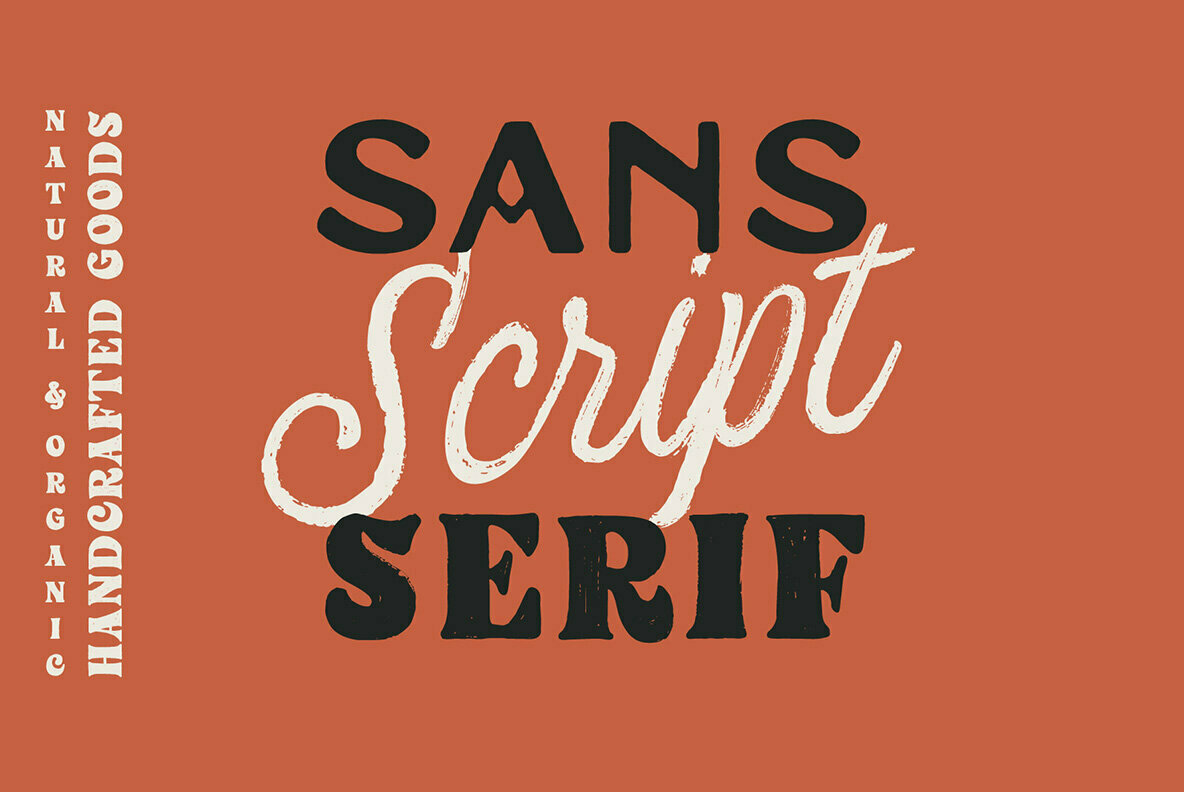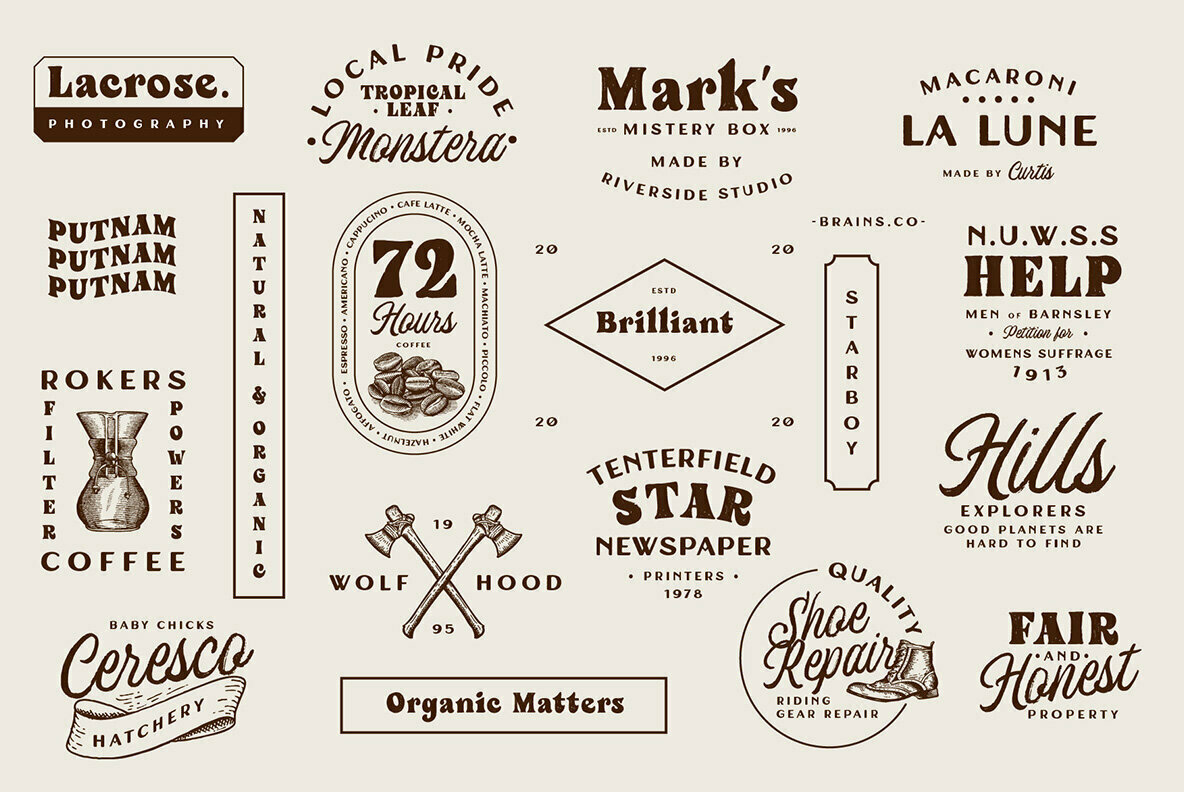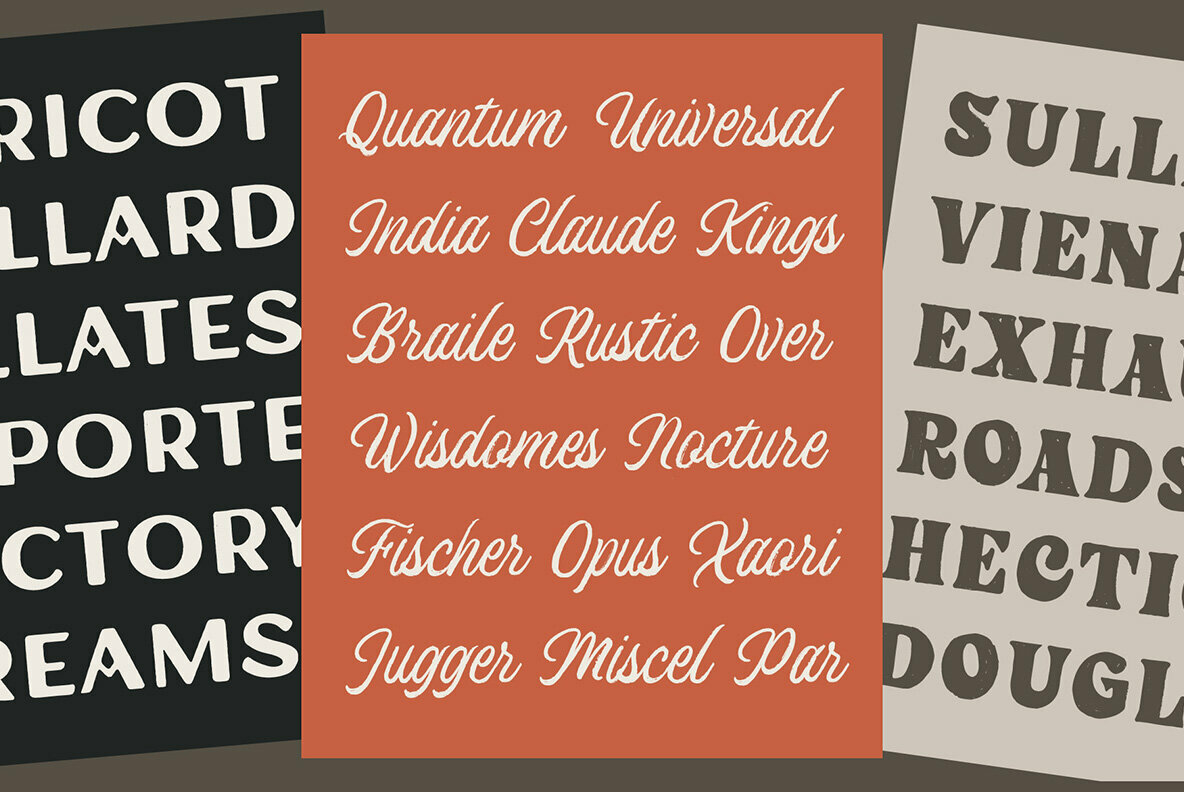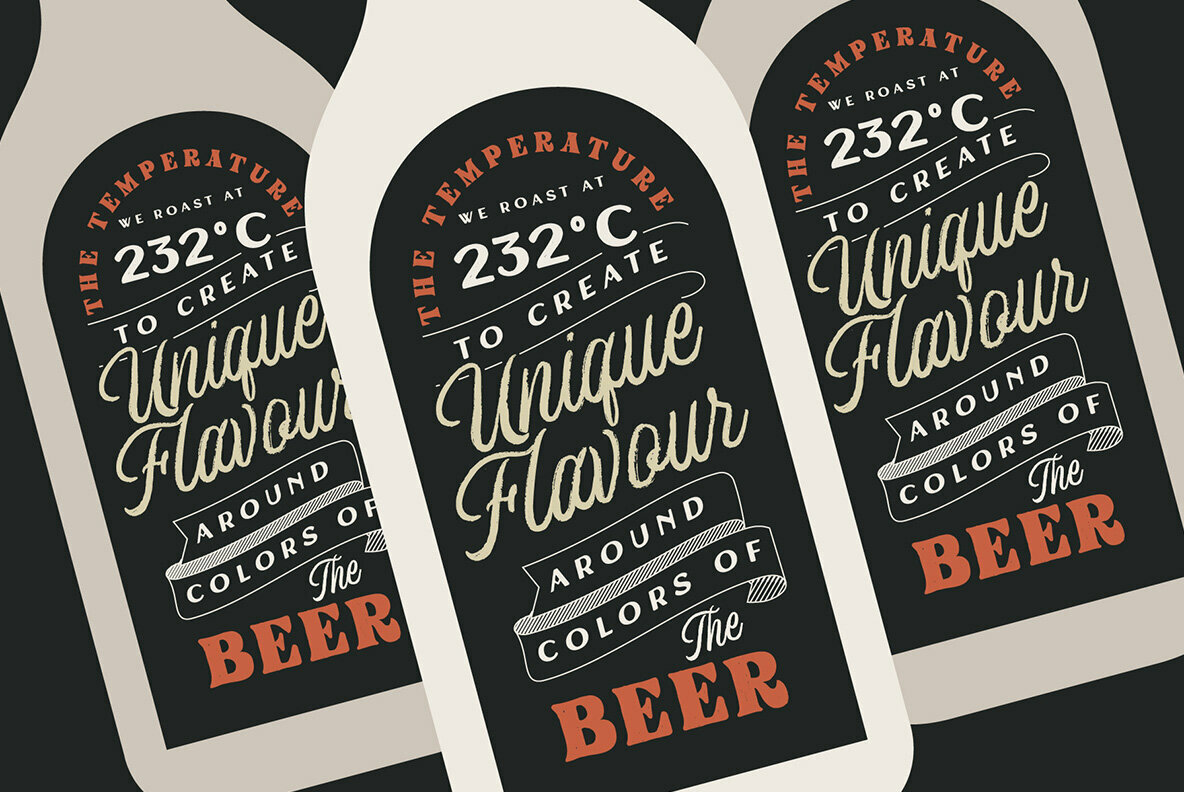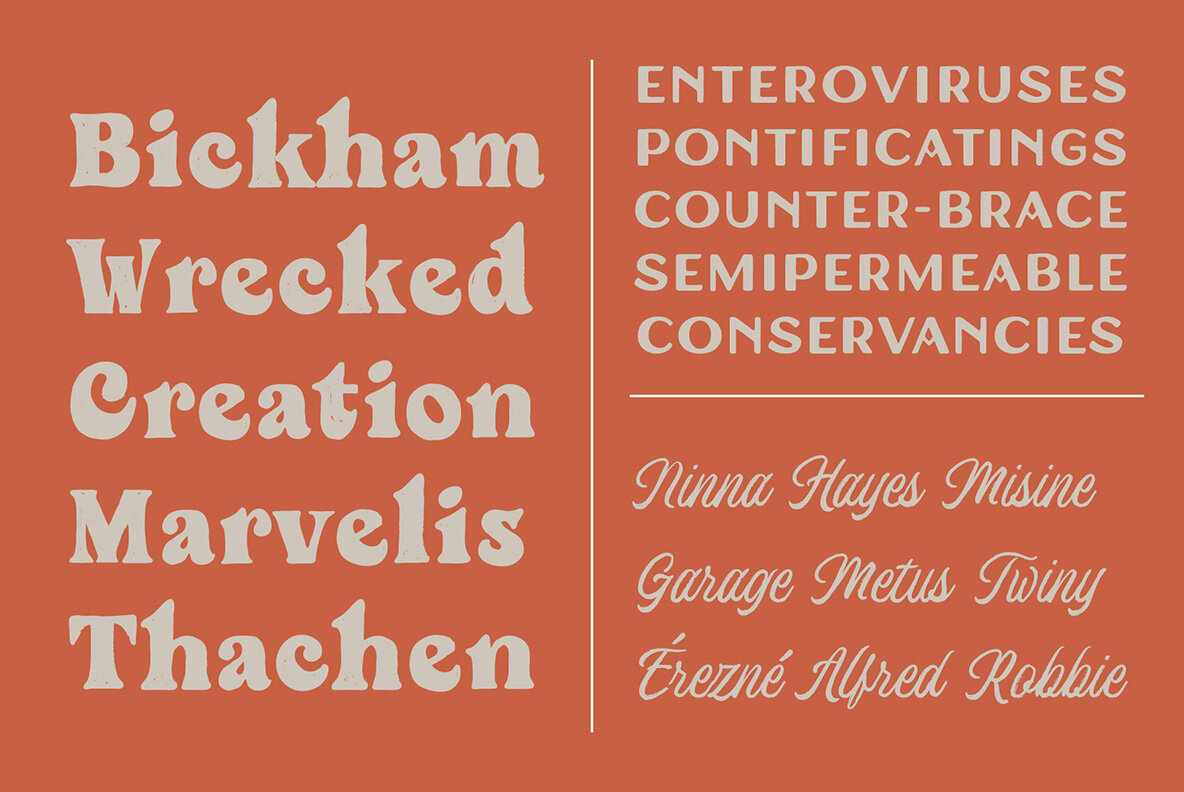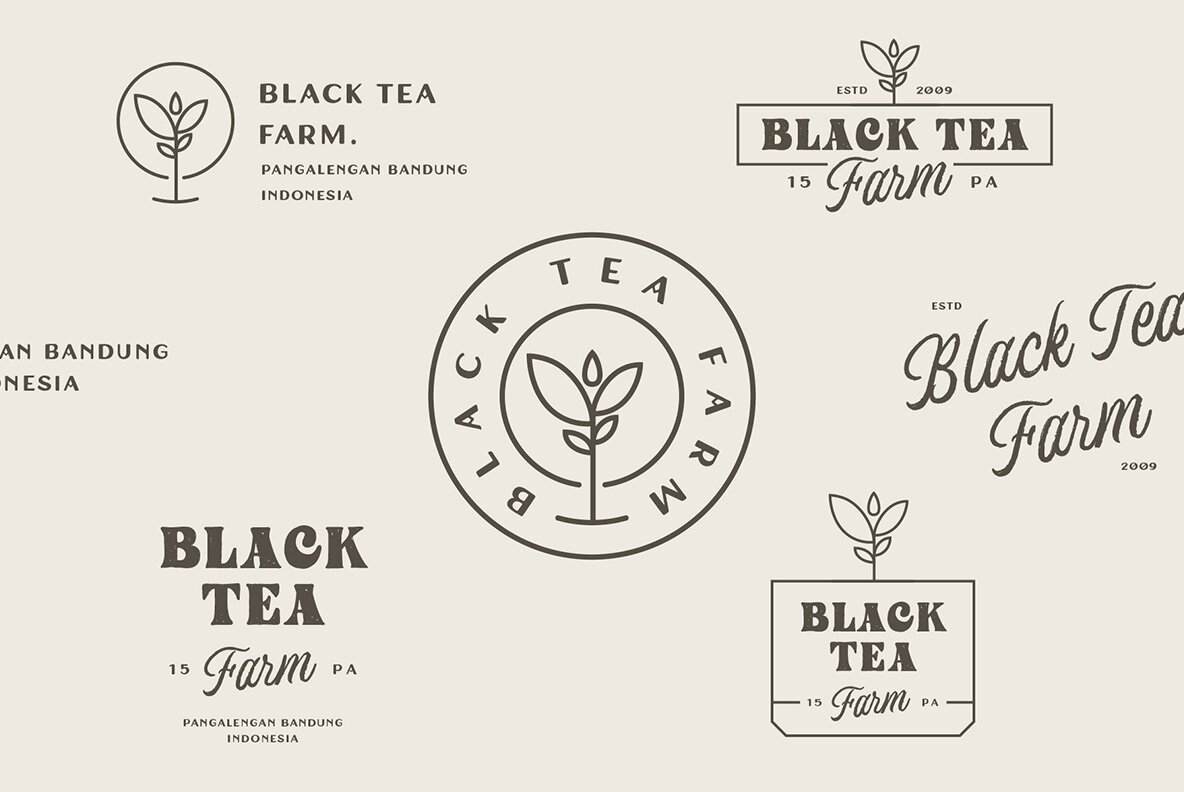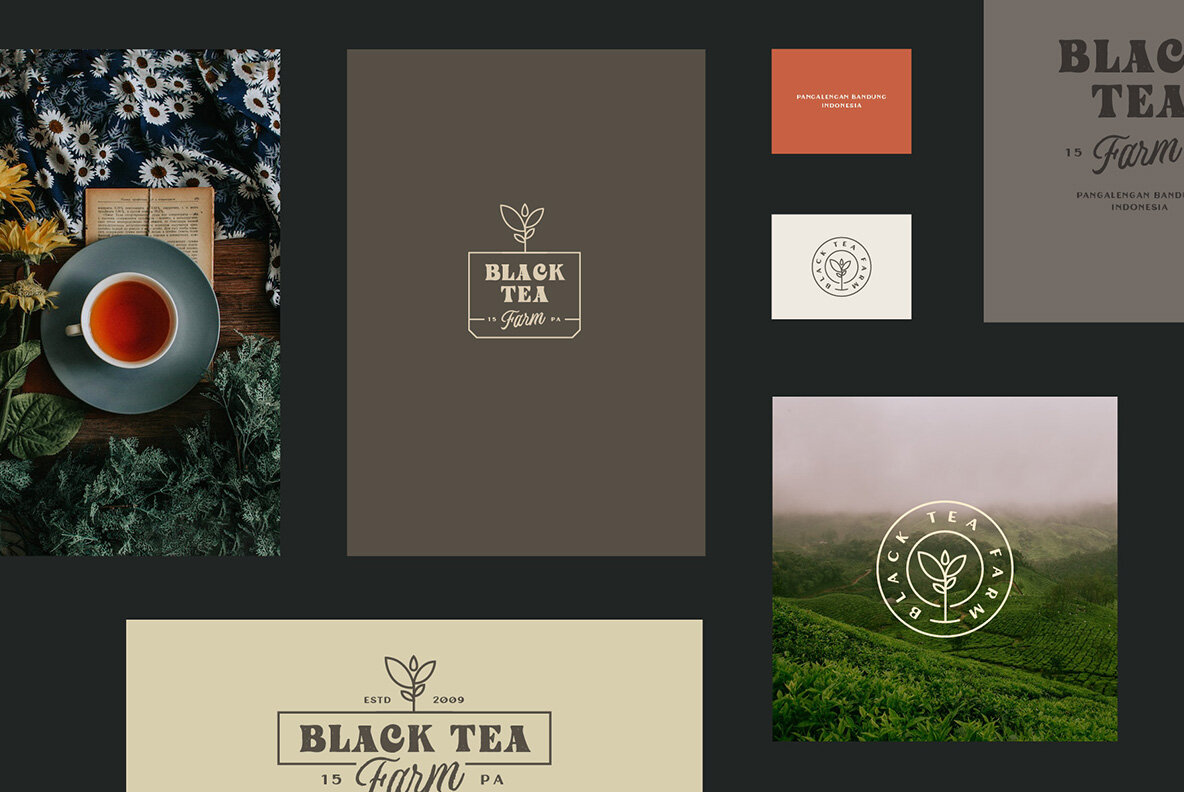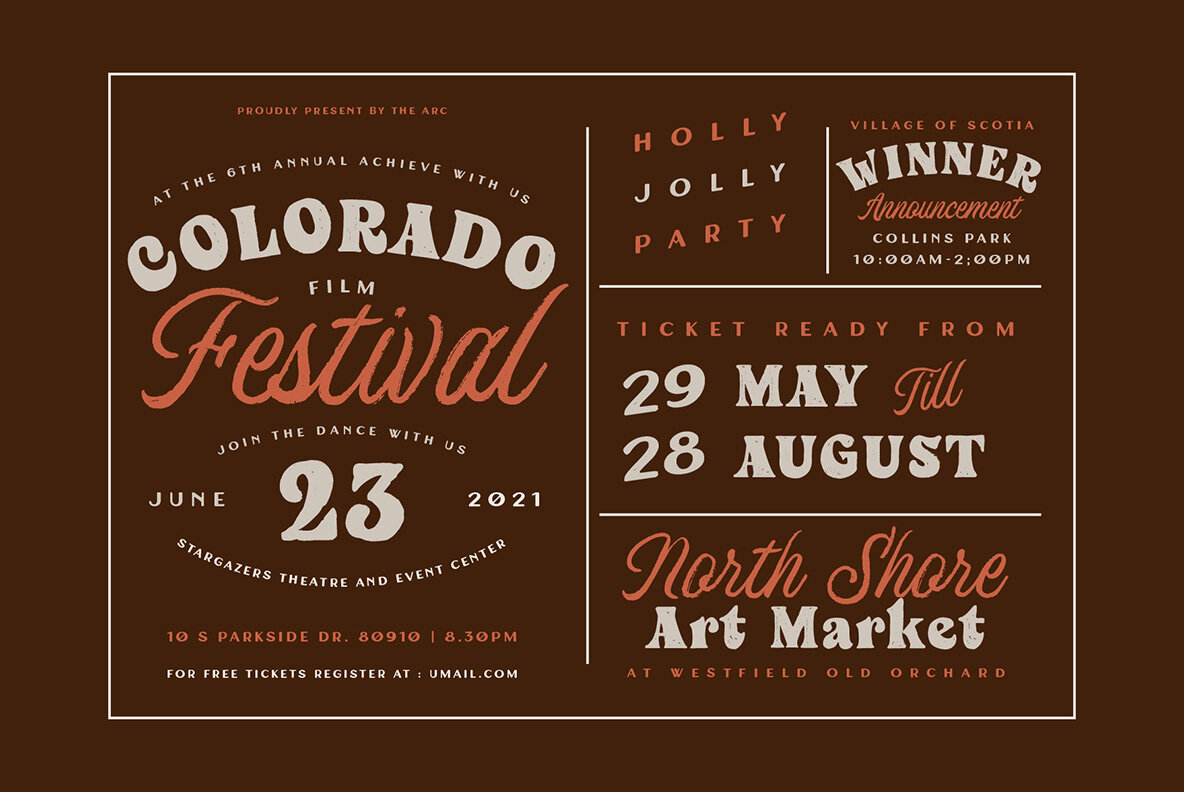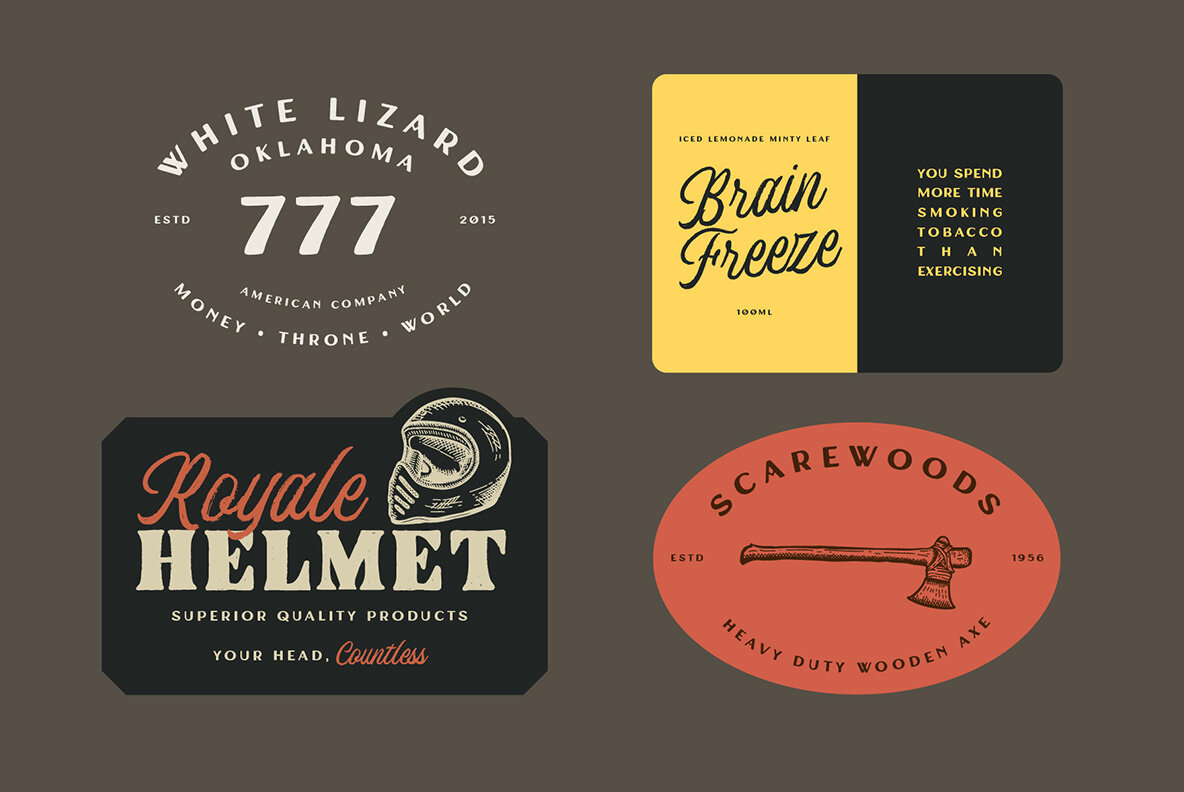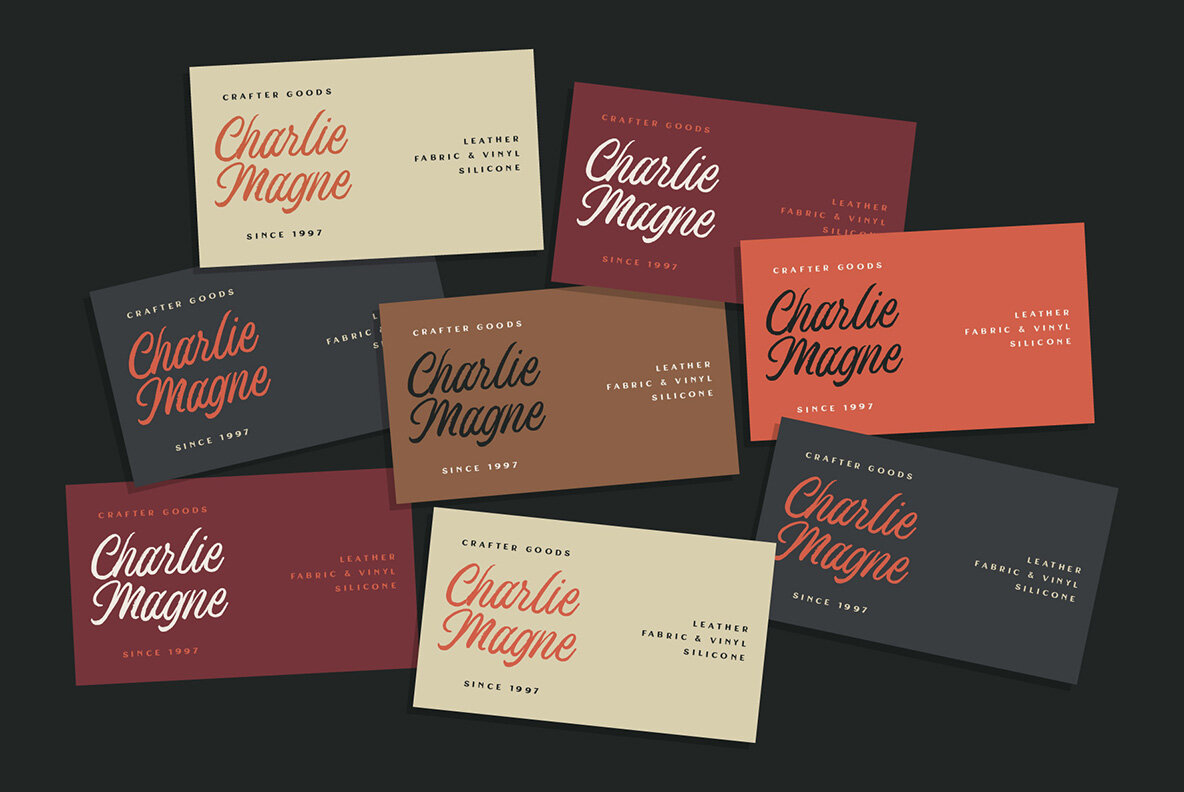
Windsore Font Trio
Windsore Regular
Windsore Script
Windsore Serif
The Windsore Font Trio, crafted by Adam Fathony, is a compelling blend of three handmade fonts that exhibit the raw charm of natural hand lettering. Inspired by the art of lettering, this trio provides a unique typeface ensemble ideal for projects demanding a natural and organic aesthetic, with an eye to vintage and retro designs. The three styles within the Windsore Font Trio each bring their distinct personality to the mix: Each font in the Windsore collection supports an extensive array of languages, including but not limited to English, French, Spanish, German, and Swedish. This broad range ensures that the Windsore Font Trio is well-suited for a diverse set of linguistic needs, making it an excellent choice for international projects.Windsore Font Trio: A Versatile Collection for Dynamic Design